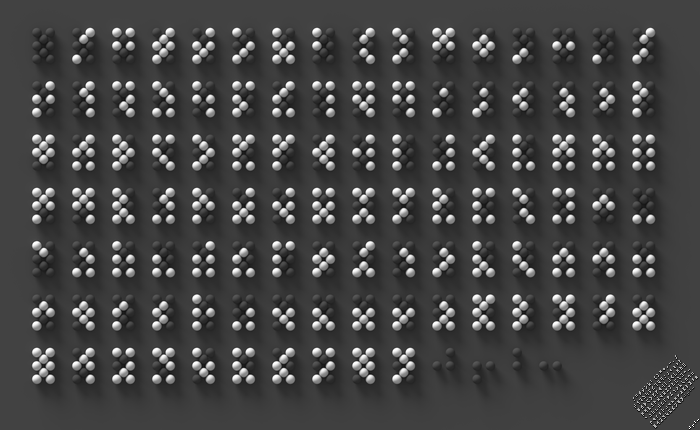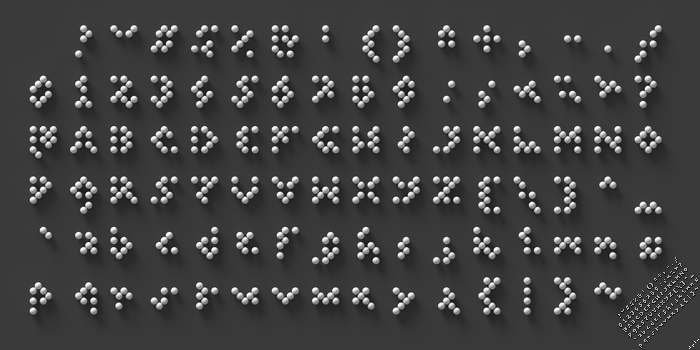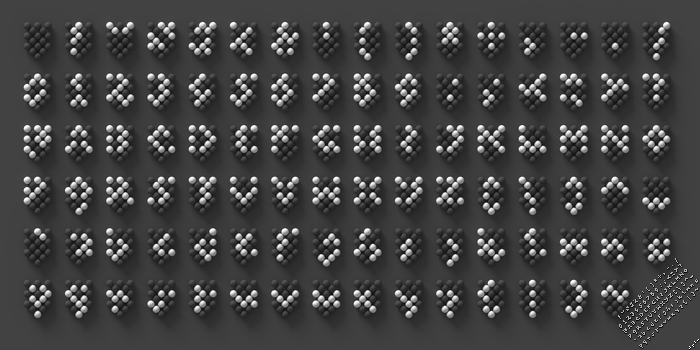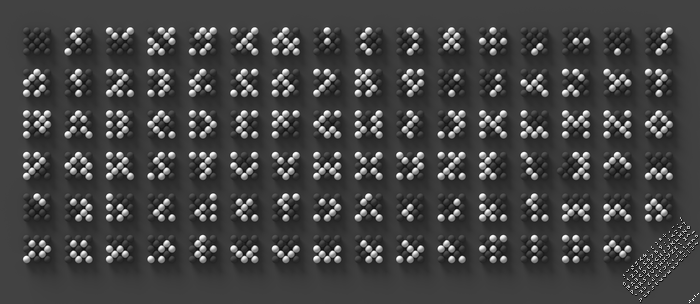
These samples come from my project of usable 'micro' fonts.
This documentation reminds the newcomer, kid -pun- or not,
to be thrifty in both dimensions, when designing '3x5' glyphs.
You can train / get convinced using the original image above:
#LINE (PNG) | CHRS (TTF)
#01 1234567
#02 A
#03 BCDE
#04 FGHI
#05 JKLM
#06 N
#07 OPQR
#08 STUV
#09 WXYZ
#10 [\]
#11 a
#12 bcde
#13 fghi
#14 jklm
#15 n
#16 opqr
#17 stuv
#18 wxyz
#19 {|}
#20 ~ (top right after 90° rot.)
N/A !"#$%&'()*+,-./089:;<=>?@^_`
LOW-RES CHARACTERS:
5-dot hex
6-dot hex
7-dot hex
8-dot hex
9-dot hex
12-dot hex
13-dot hex
16-dot hex
18-dot hex
(US-ASCII from 8-dots and above = fonts;
may be rendered as e.g. stitching works,
pseudo-isometric blocks, diagonal LEDS…;
18-dot hex features hundreds of glyphs…)
> Pixel art: diagonals and rotations
(retro coding and graphics history intended
– by postponing the low-res Voxel art section).
'My' minimalist _US-ASCII_ pixel fonts project
is pending 1. my latest version of these sets,
and 2. my updated list of the comparable works
(for instance a lot of old 8-bit video games)…
+ More works of mine related to these fields
(which often take years to me to be released
– unreleased samples may be posted in private).
@TH3_C0N-MAN: you're quite right; glad to read you on FS.
I hope you are sill a good student, along with a passionate musician and retro coder. =°)
---
4 SELECTED SAMPLES should follow – all from these short-term projects of mine…
• 08-dot hex: “8-dot-tall-hex-us-ascii-font-2020-01-17-by-dpla-3d-700px.png
• 09-dot hex: “max-5-block-solid-3x3-lowercase-2017-05-31-by-dpla-3d-700px.png
• 18-dot hex: “3zx4-18-dot-diagonal-ascii-font-2019-12-by-dpla-feat-the-brain-1969-gaumont.gif
• “pixel-art-diagonals-and-rotations-2019-01-30-till-09-11-by-dpla-01b-main-fig-neg-360px-x1-3gray-gma.png”.
@dpla - Nice to your return!  :^)
@dpla - Sorry -- Nice to SEE your return!  :^)
@dpla
Actually, I finished school. I’m sitting at work right now! Still make music and code, yes.
And your samples get better and better!
@TH3_C0N-MAN: great and encouraging semi-private news of yours!
(I'll try to log in FS again before 2050 – I might be dying then, while you'd be busy teaching fontstructions and code to your grand children…)
@Goatmeal & Guywah: thank you; I cannot comment elsewhere for the moment, as I had to postpone my reviews of the 'standard' very low-res pixel fontstructions…
(Historically speaking, their priority is **lower** in 'my' main project [for its documentation and comparison] than in the 1980s/1990s similar designs/trials. For example, I'll archive the 2×2-pixel digits from the old commercial video games at first; next, but without a scheduled date, all their clones or modern 'converging creations', like Guywah's recent “NTX_2x2” and a plethora of retro gamin' stuff/people.)
---
SAMPLE TRIO below – the 18-dot hexagonal design turned out to be the seminal one…
• “18-dot-tall-hex-3x4-alike-ascii-font-sample-2019-11-23-by-dpla-3d-700px.png
• “16-dot-tall-pointing-down-hex-us-ascii-font-edit-from-18-dot-2020-01-24-by-dpla-3d-700px.png
• “13-dot-x-cross-hex-us-ascii-edit-from-16-dot-2020-04-11-by-dpla-3d-700px.png”.